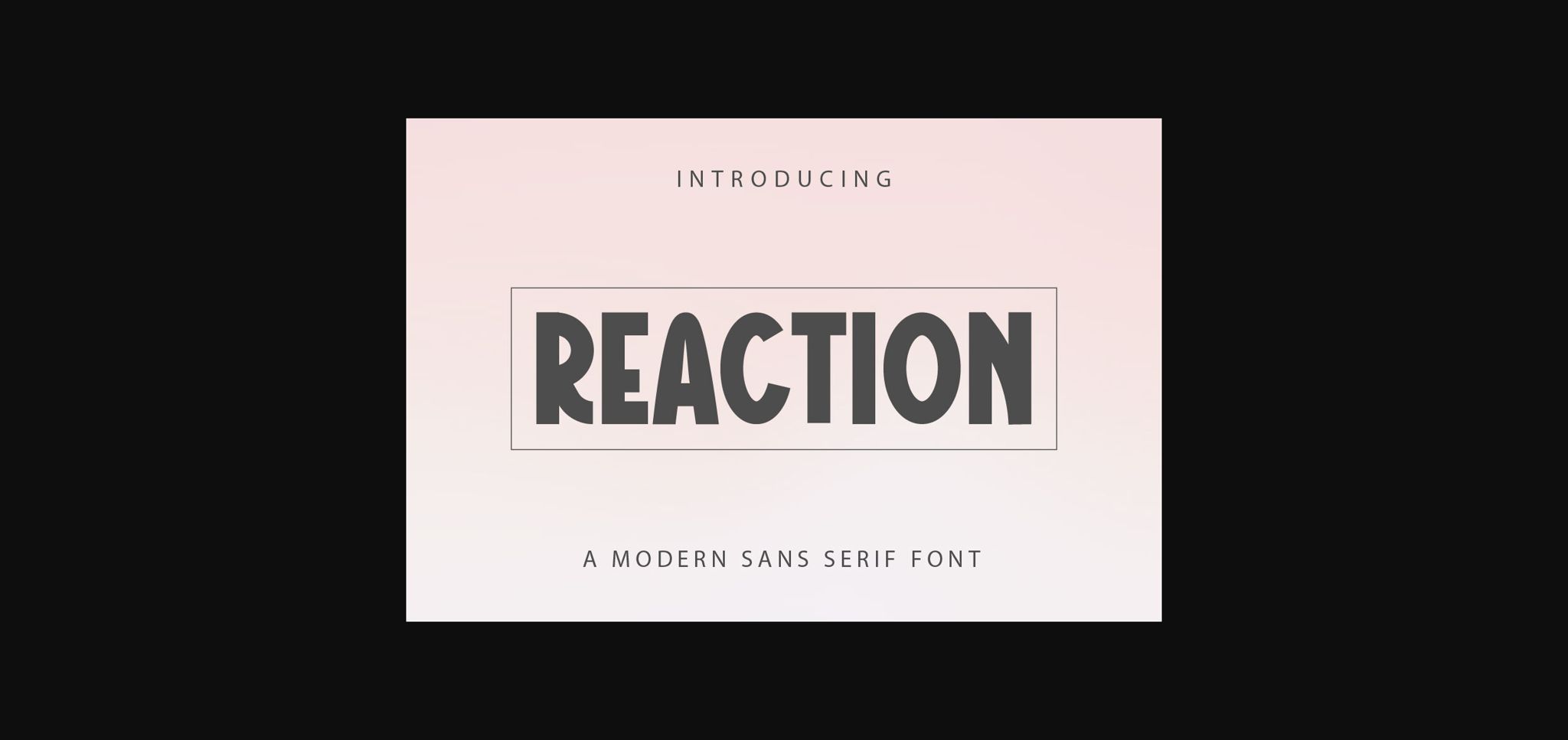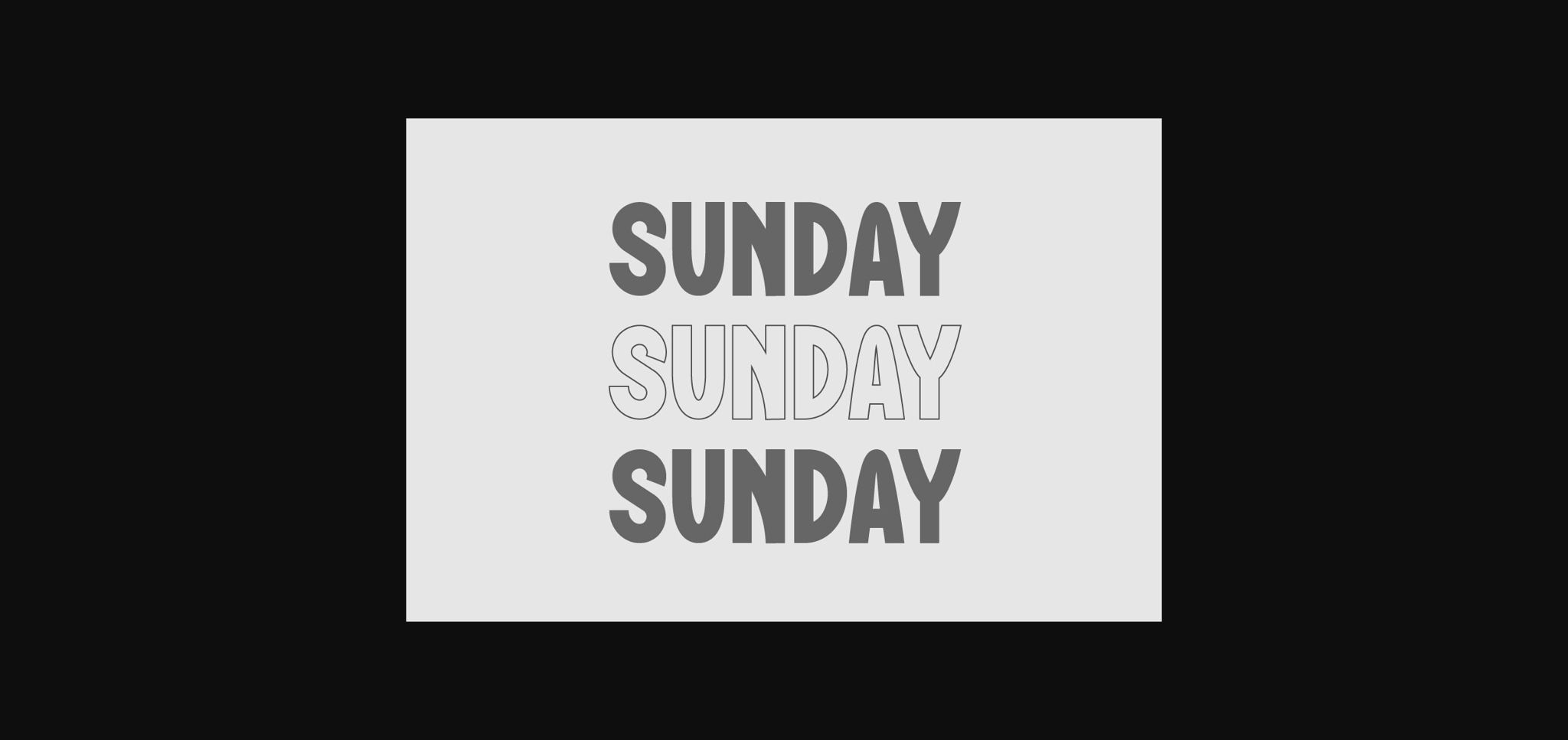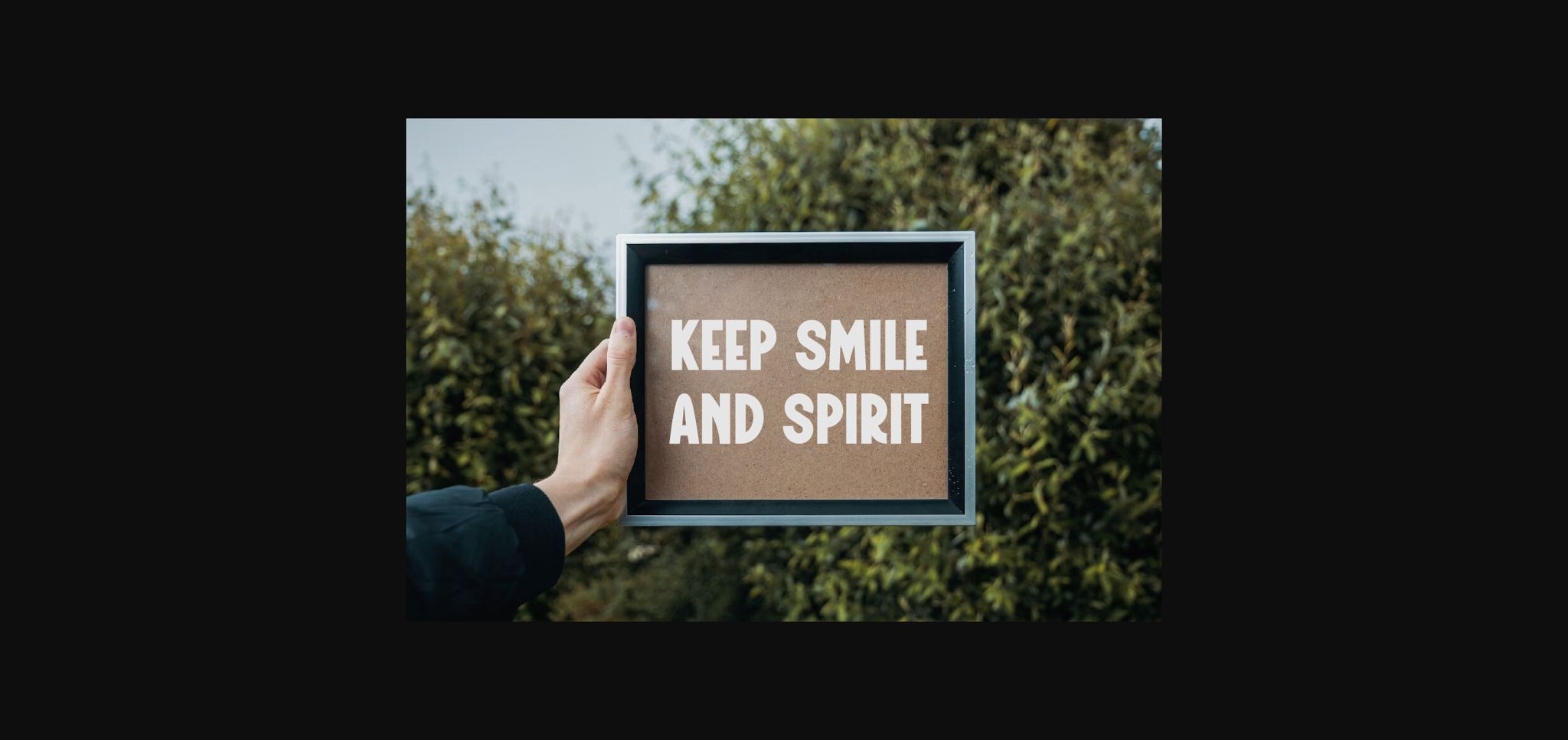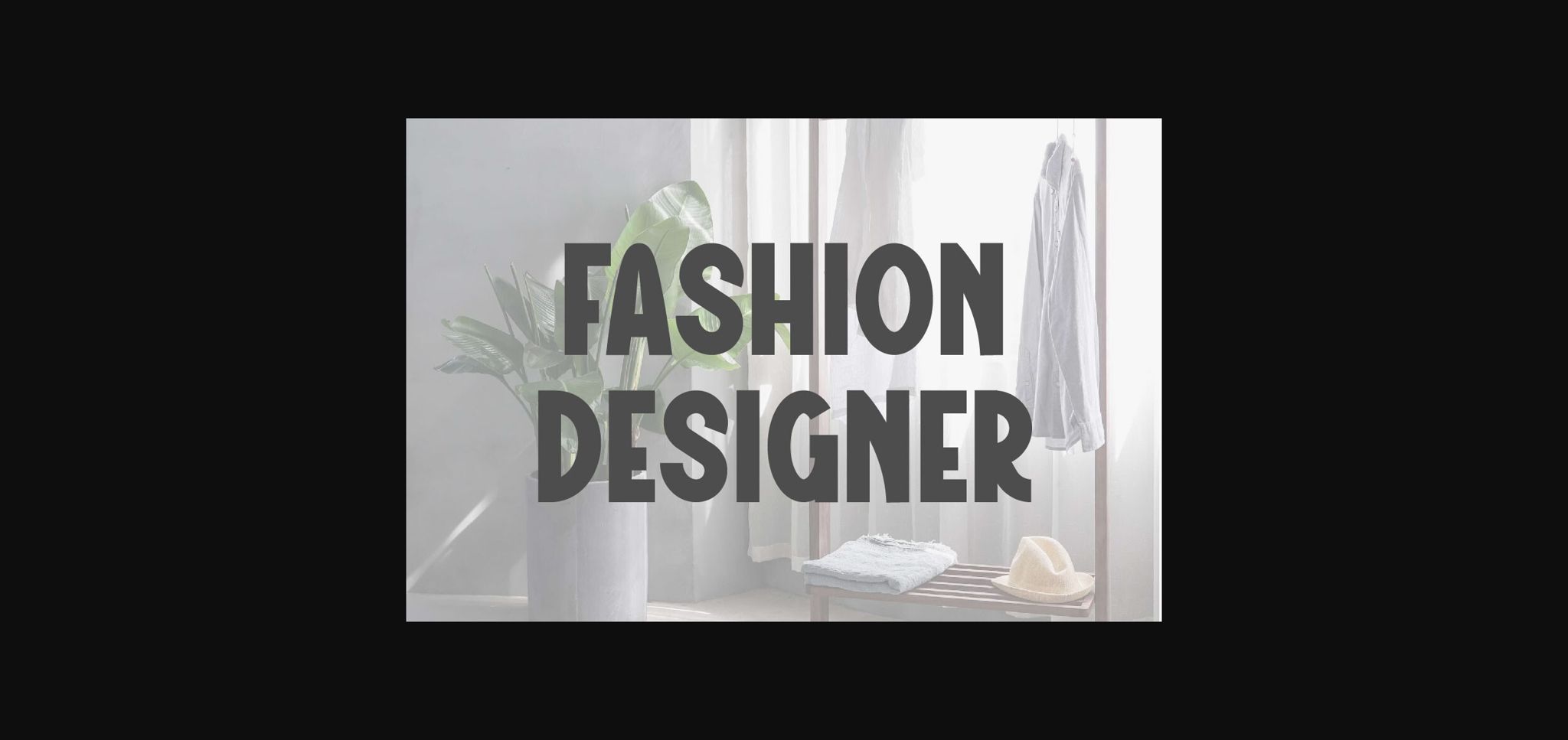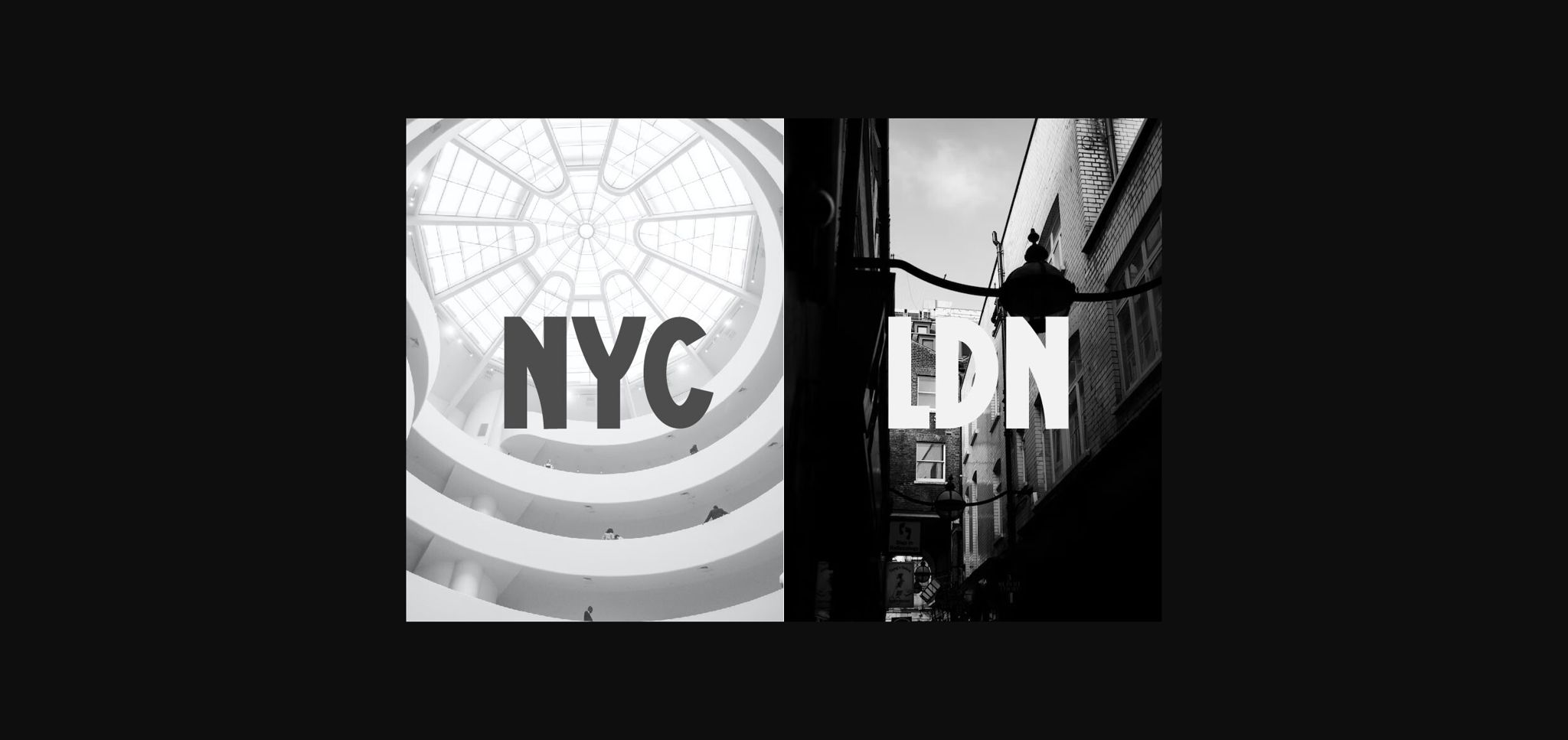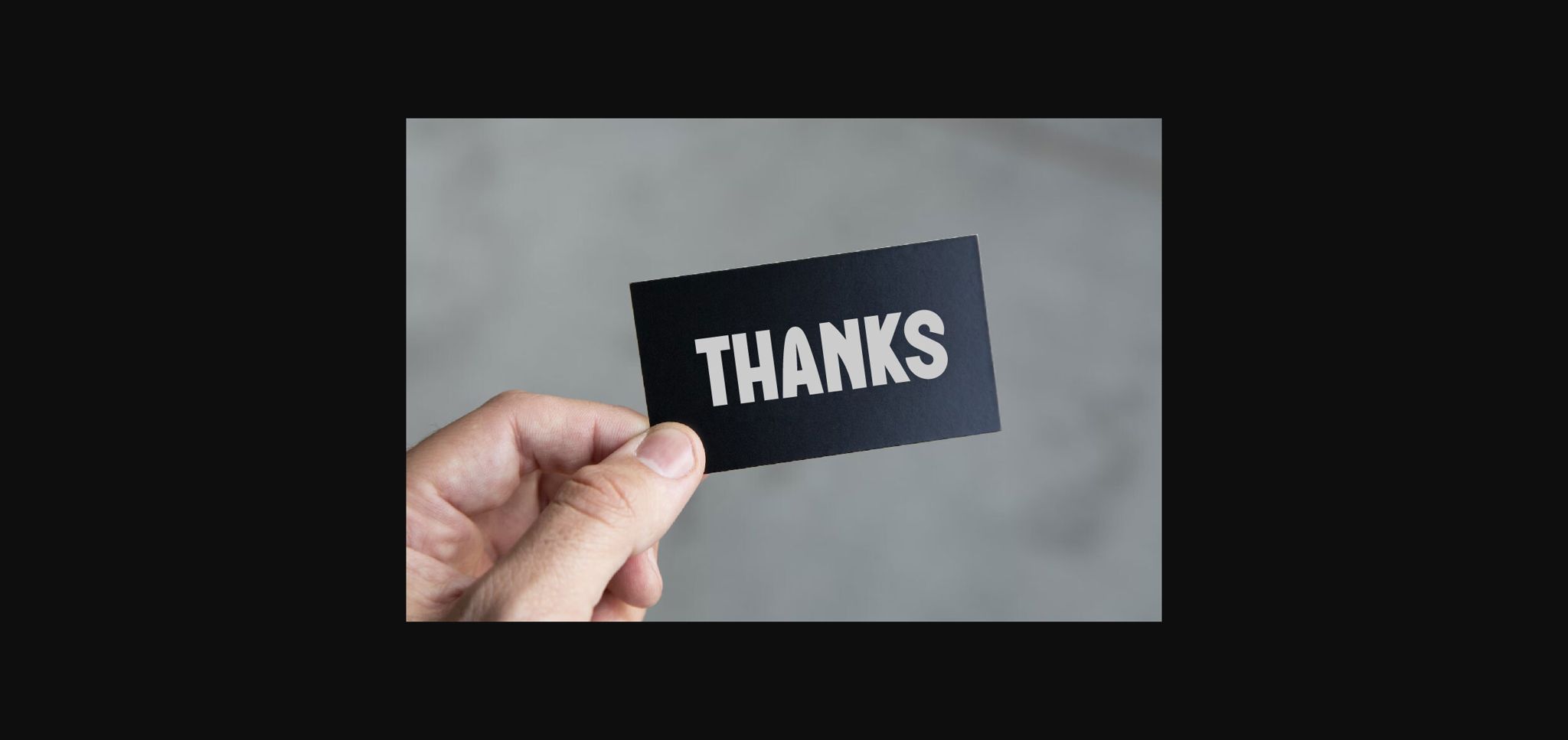
Reaction Font
About Reaction Font
Reaction is a cute sans serif font, this font is perfect for greeting cards, weddings, gift labels, mugs, t-shirts, quotes, labels, branding, fashion design, posters, magazine, social media, interior design, etc. Use it to create spectacular and interesting designs!